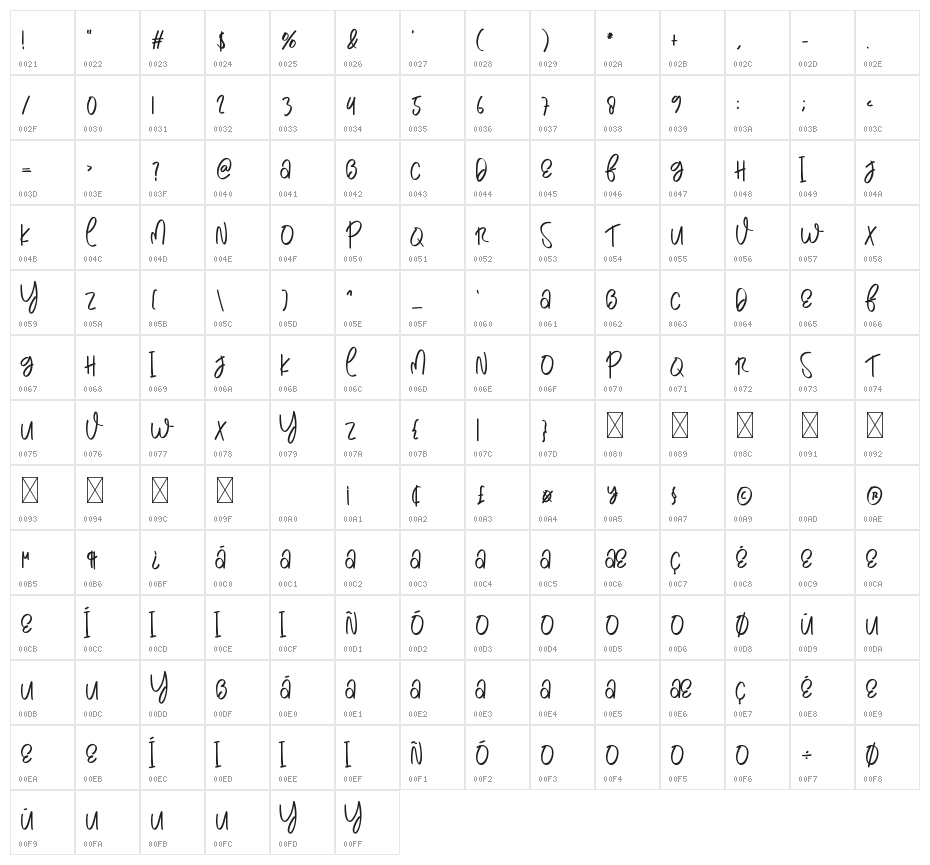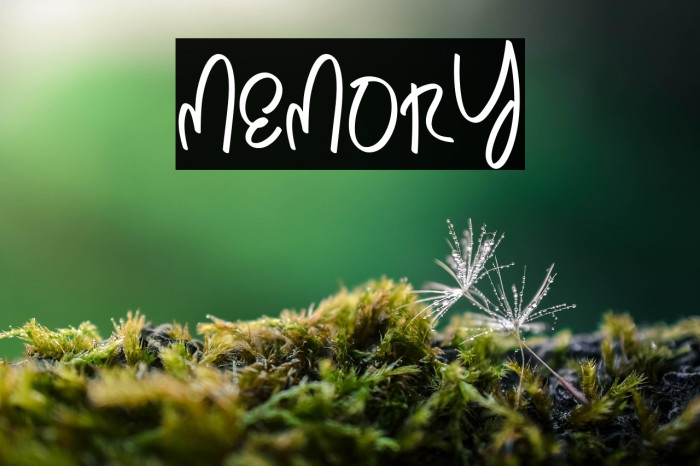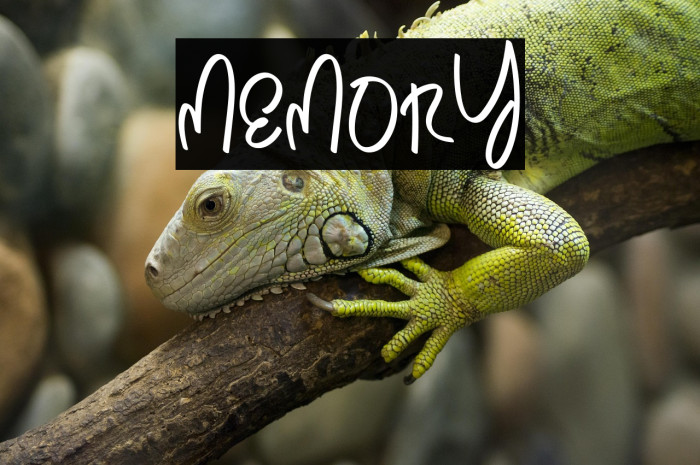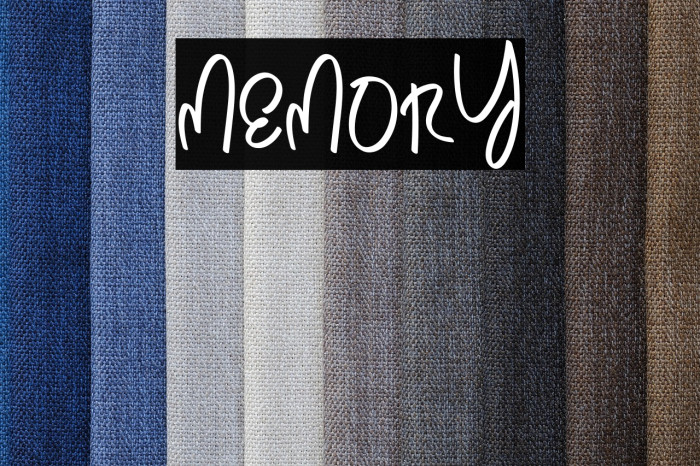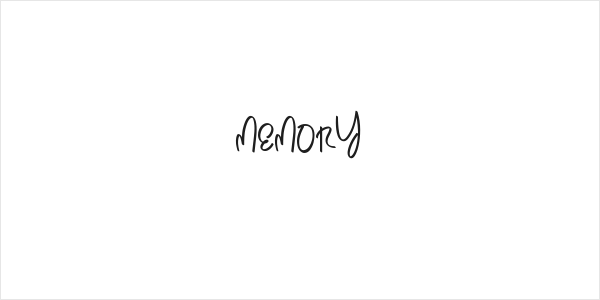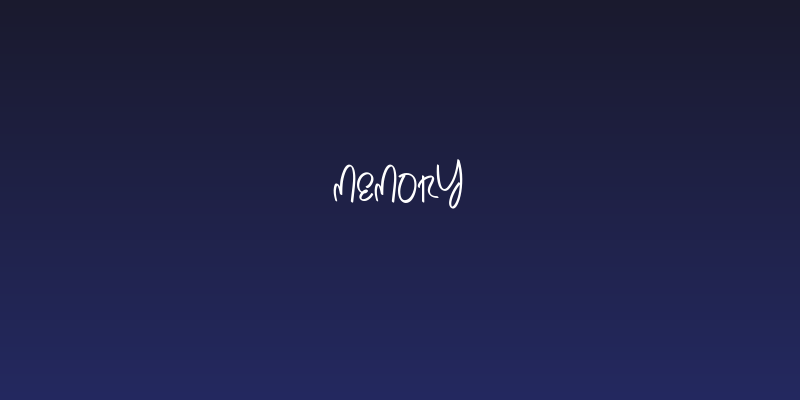
Memory Font
Memory Description
This font features a playful and casual handwritten style, characterized by its fluid and slightly irregular strokes. The letters have a natural, flowing appearance with a slight slant, giving it an informal and friendly vibe. The uppercase and lowercase letters are distinct yet maintain a cohesive look, with rounded edges and varying stroke widths that add to its charm. The numerals and special characters follow the same style, ensuring consistency throughout. This font is ideal for projects that require a personal touch, such as greeting cards, invitations, or any creative design that benefits from a handwritten aesthetic.
| Overall Style | Casual, Playful |
| Use Case | Logos, Headlines, Creative projects |
| Proposed Projects | Ideal for greeting cards, invitations, personal branding, and creative designs. |